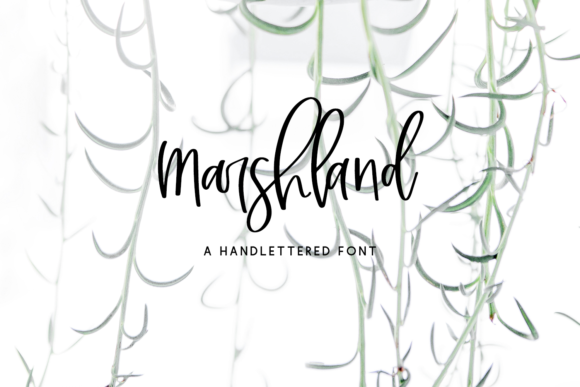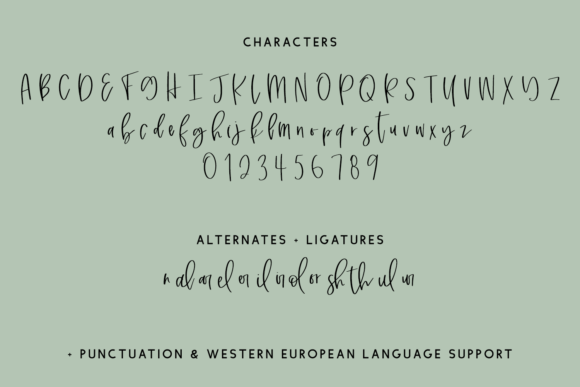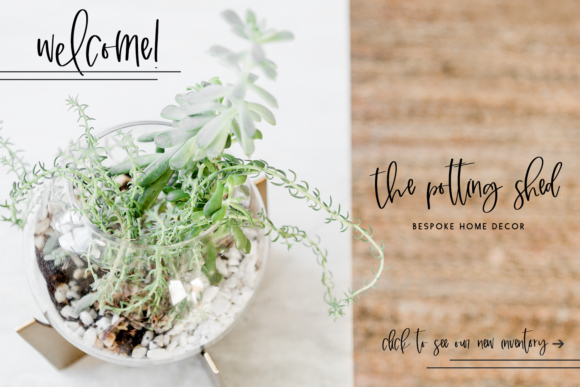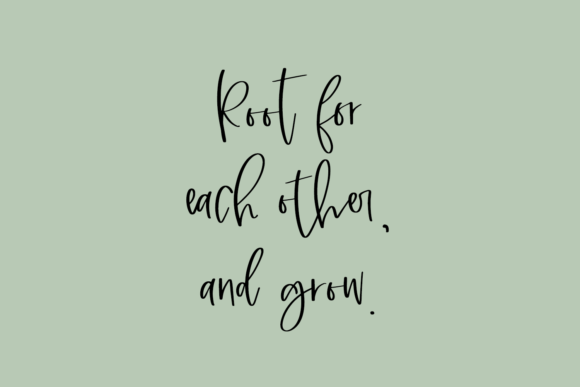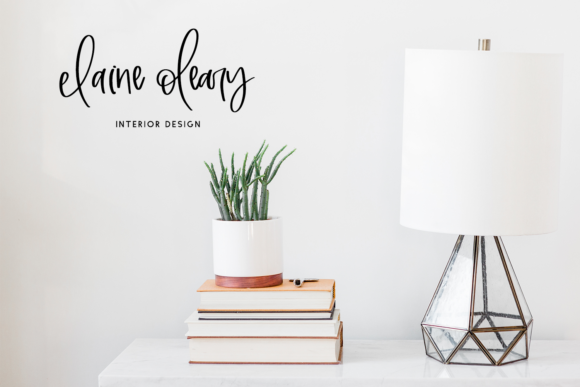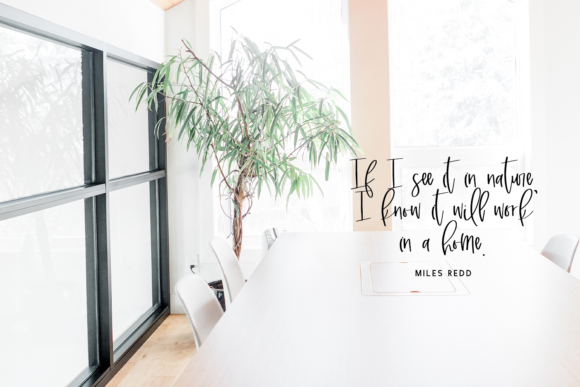
About Marshland Script Font
Marshland is a modern calligraphy script. Marshland is hand-lettered and features some extras to customize your text.
Marshland Script is best for:
– logos + branding
– website design + website accents – think travel blogs, fashion blogs, & more
– clean print design, like magazines + flyers
– header elements that need a handwritten touch
– quote graphics for social media